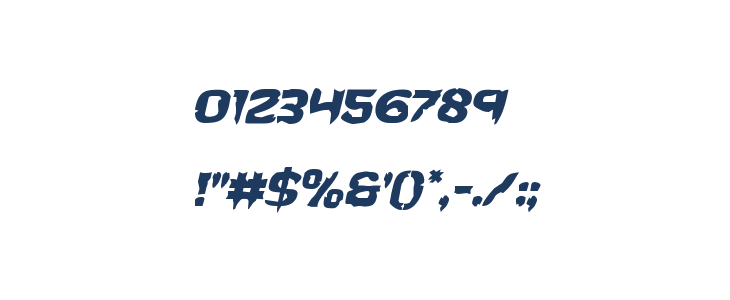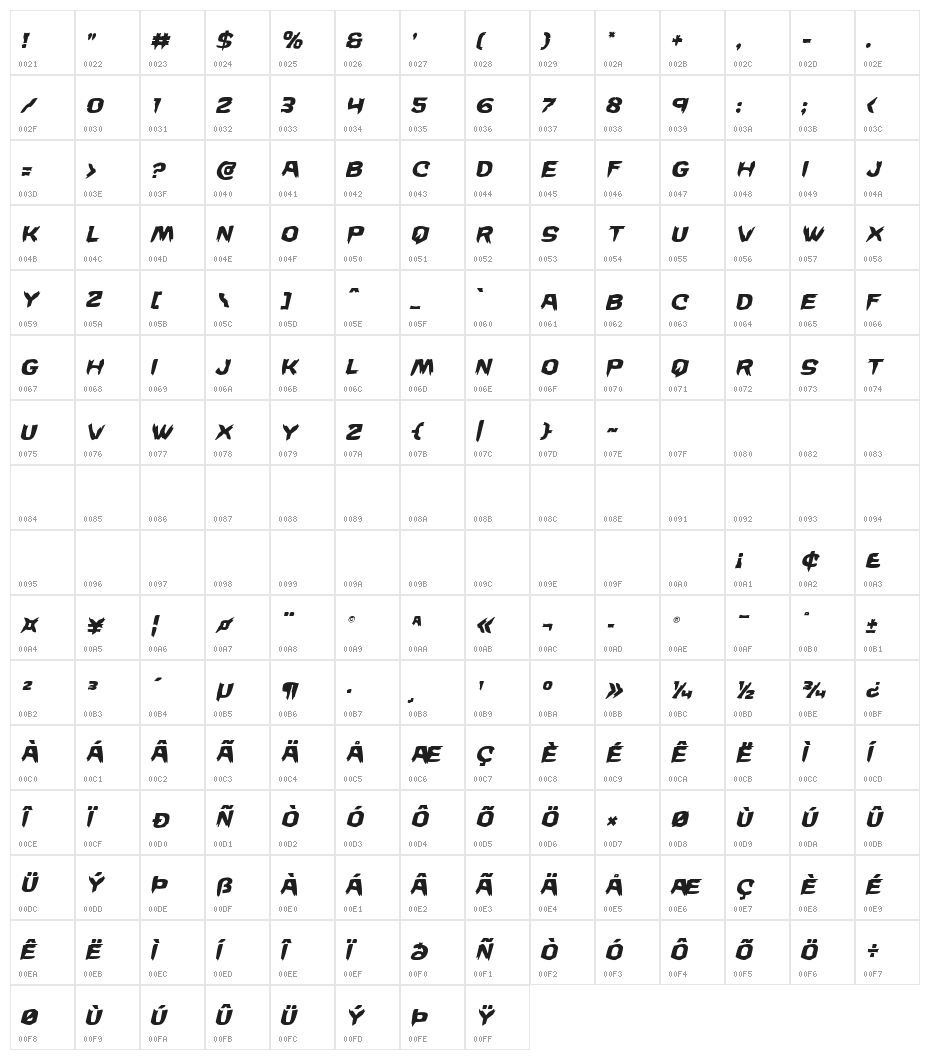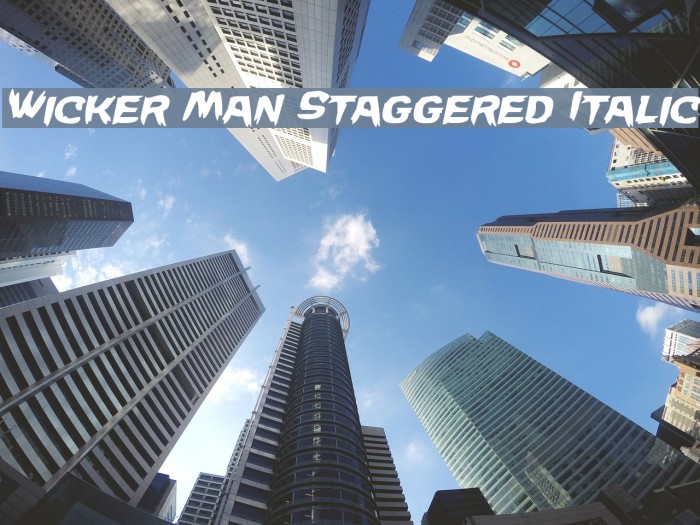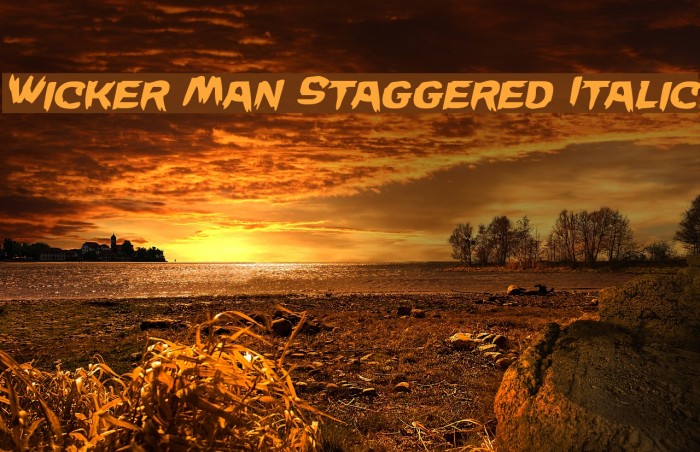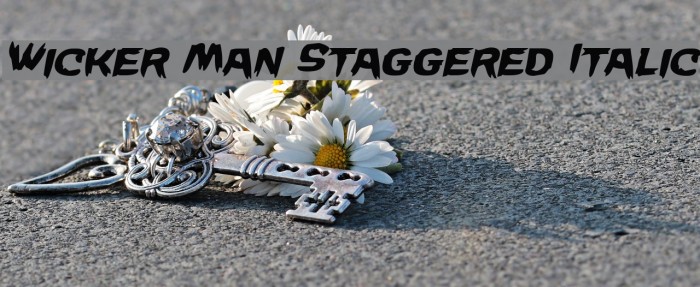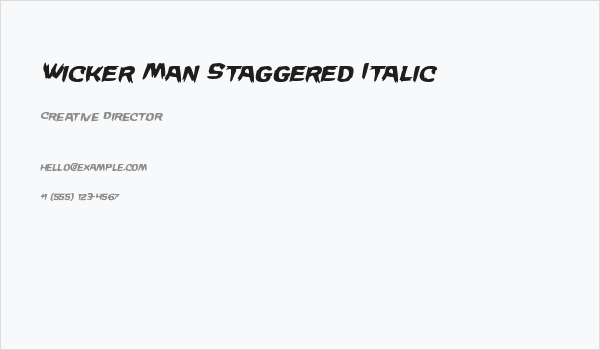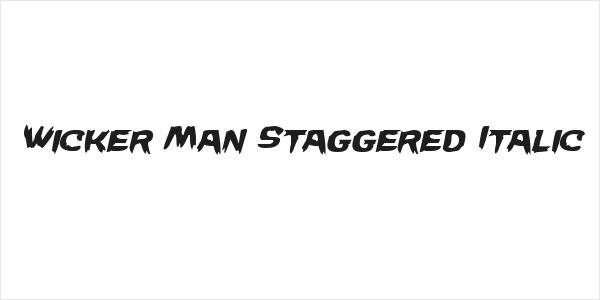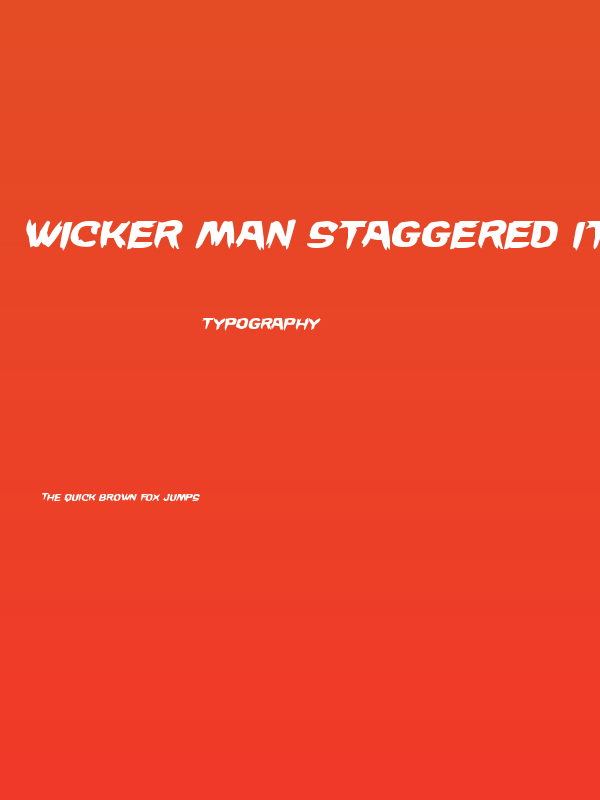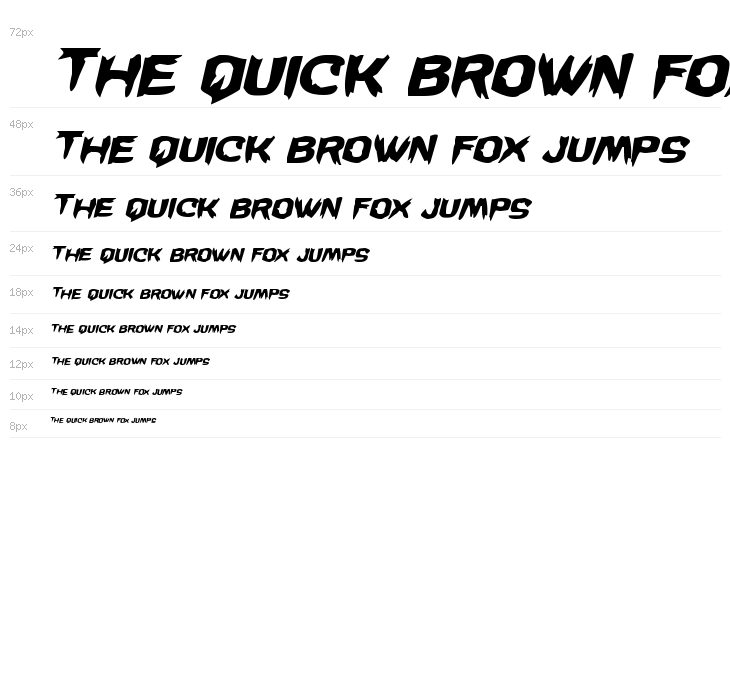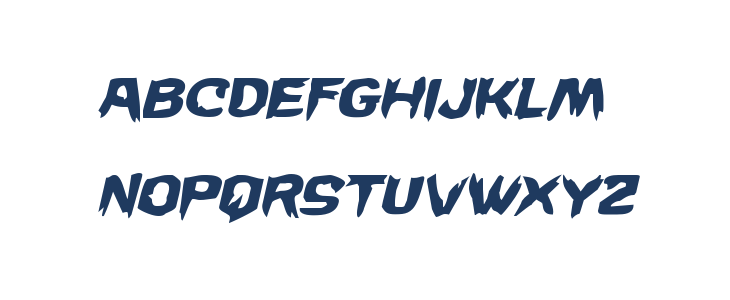
Wicker Man Staggered Italic Font
Wicker Man Staggered Italic Description
This font features a bold and dynamic style with a staggered, italicized appearance. The characters have a jagged, edgy look, giving them a sense of movement and energy. The uppercase and lowercase letters maintain a consistent design, with sharp angles and irregular edges that create a rugged, distressed effect. The numbers and special characters follow the same aesthetic, ensuring a cohesive look across all glyphs. This font's unique style makes it stand out, perfect for projects that require a bold and unconventional typeface.
| Proposed Projects | Ideal for horror-themed designs, movie posters, album covers, and edgy branding projects. |